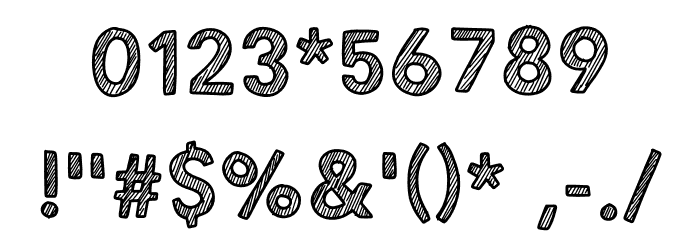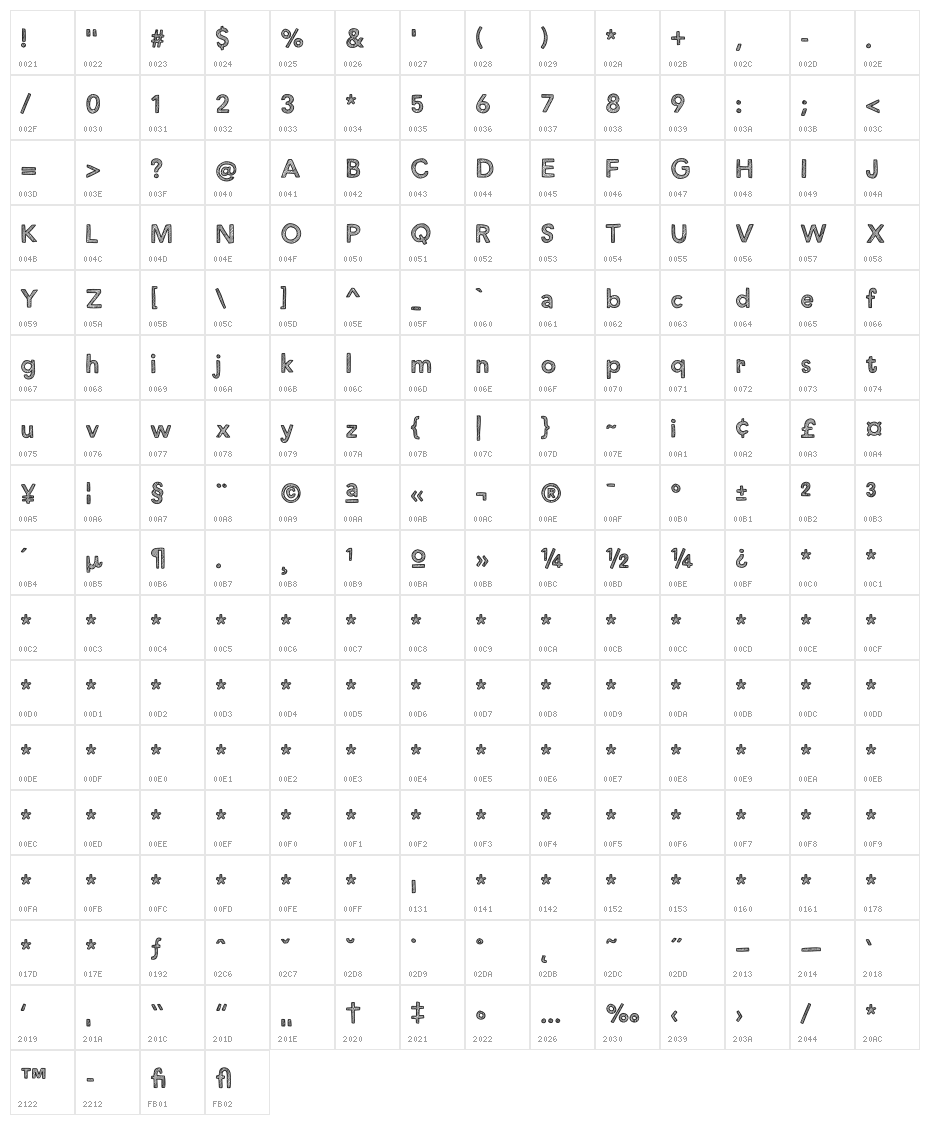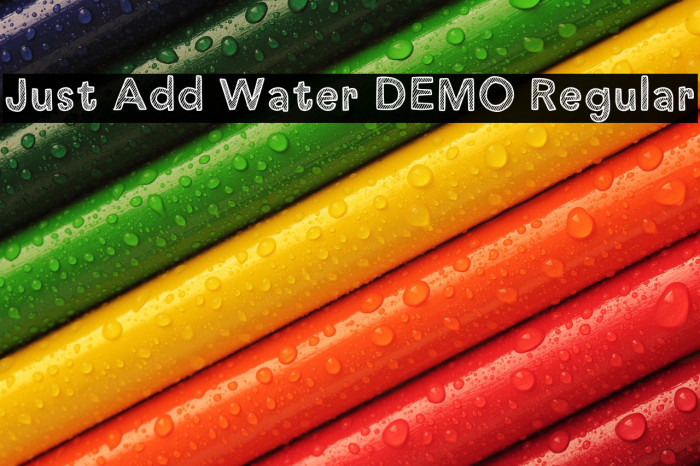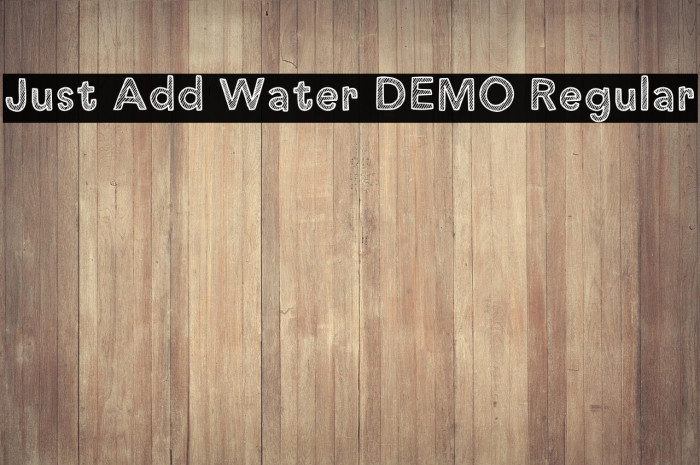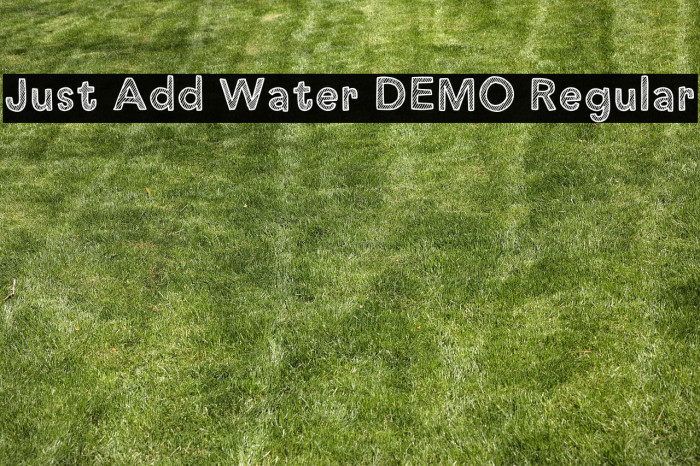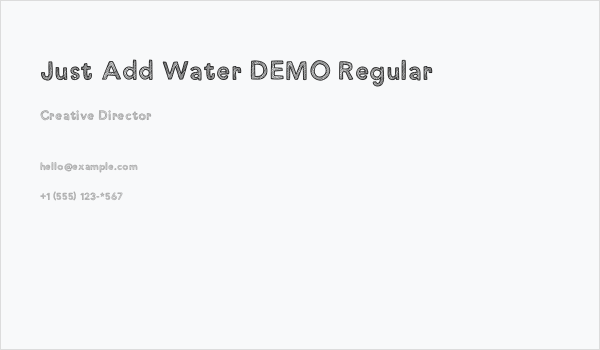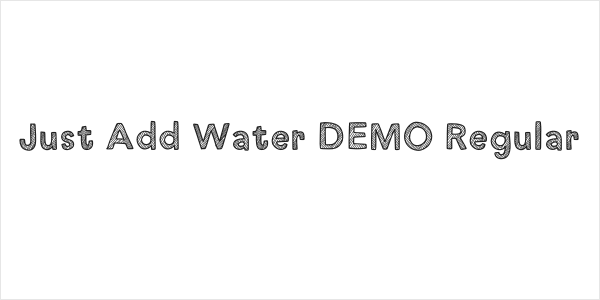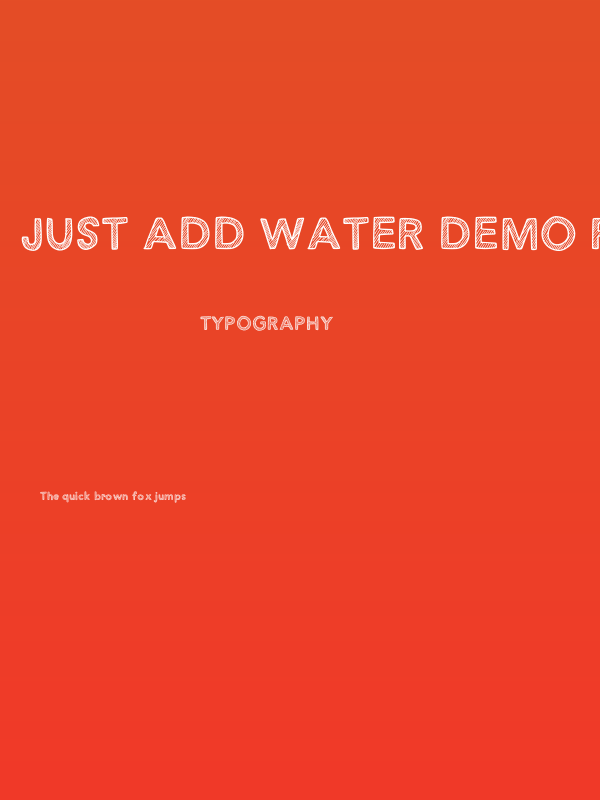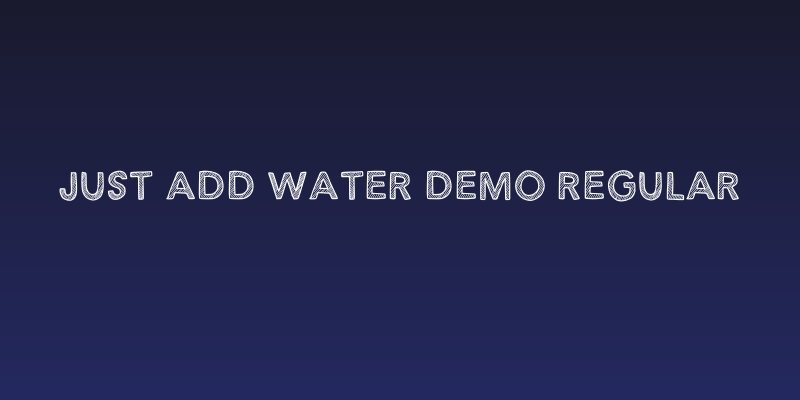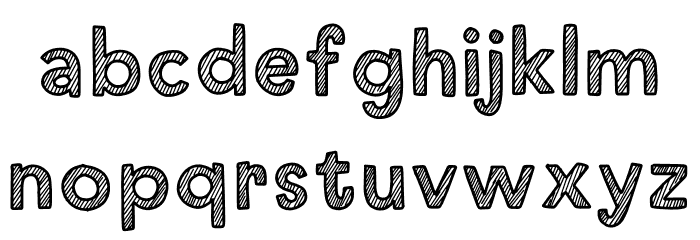
Just Add Water DEMO Regular Font
Just Add Water DEMO Regular Description
This font features a playful and textured design, characterized by its hand-drawn appearance with diagonal hatching inside each character. The letters are bold and rounded, giving a friendly and approachable feel. The uppercase and lowercase letters maintain consistent styling, with a uniform stroke width that adds to its casual charm. The numerals and special characters follow the same design principles, ensuring a cohesive look across all glyphs. This font is ideal for projects that require a fun and informal touch, such as children's books, posters, or creative branding.
| Overall Style | Playful, Hand-drawn |
| Proposed Projects | Children's books, posters, creative branding, casual invitations. |